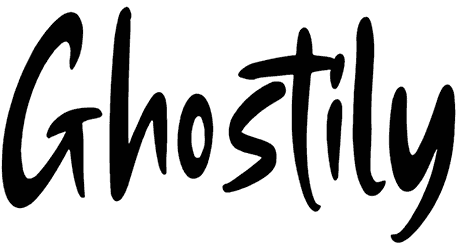
Ghostily Font
There are lots of ways to give your content and organic elements, and one of them is to use a script font like this one. Ghostily creates this cartoonish effect with its unique letter design.
This font gives you great support in your project with both the uppercase and lowercase of the alphabet, the numbers, and the necessary punctuation marks. Our inventory provides you with a boatload of options, so don’t forget to check it out.